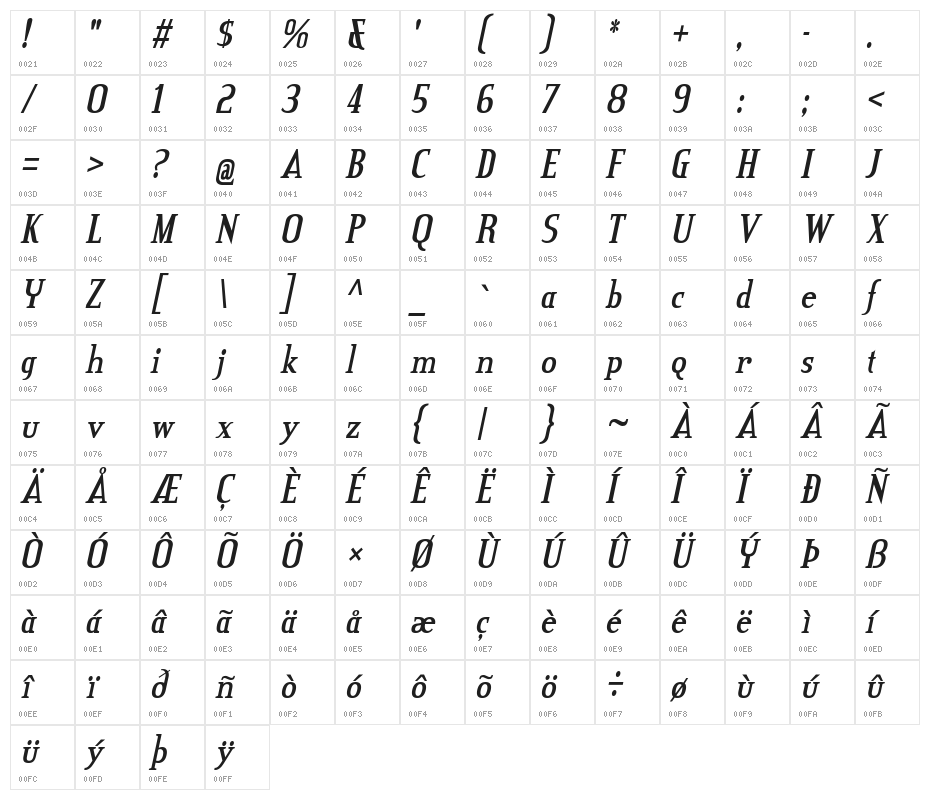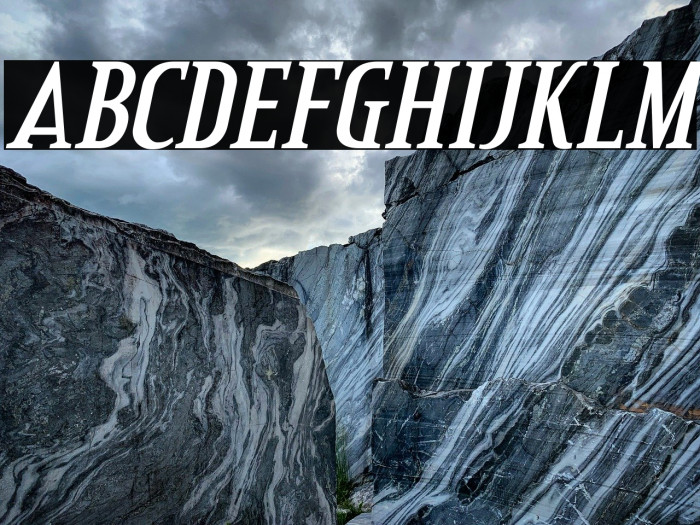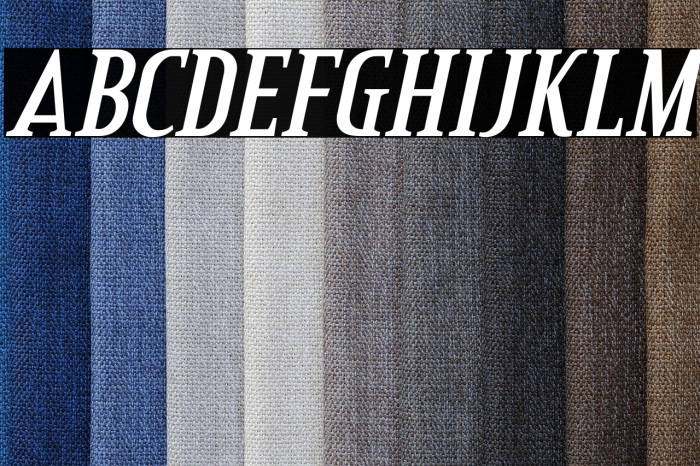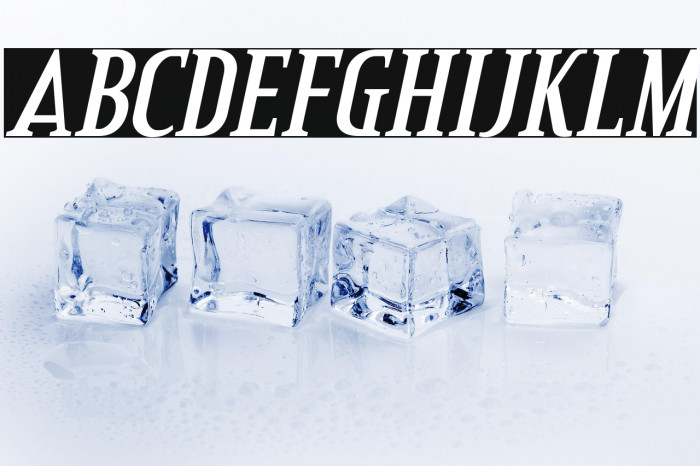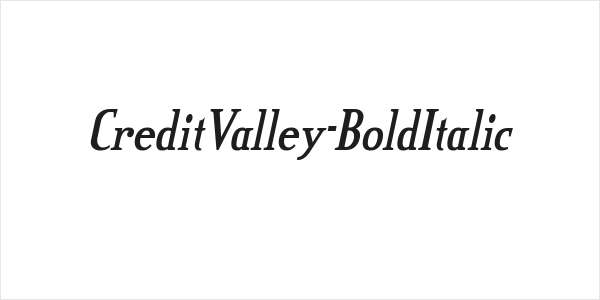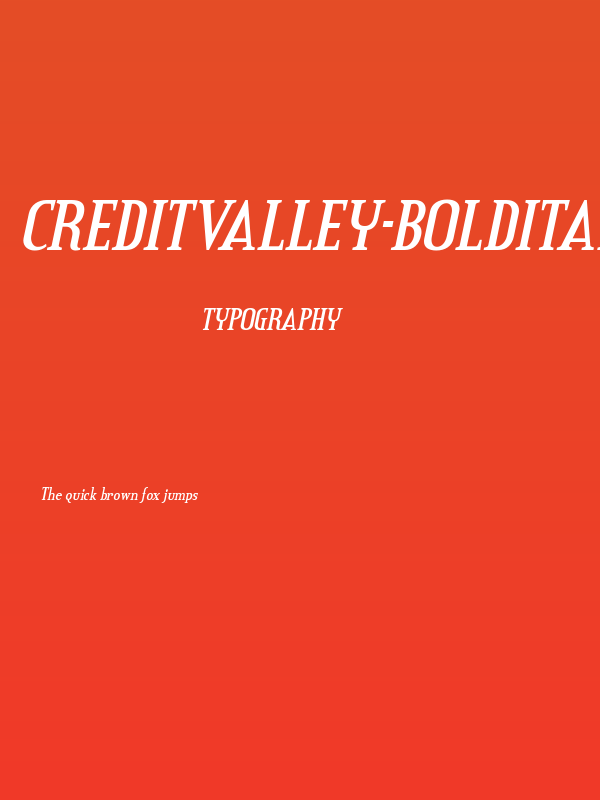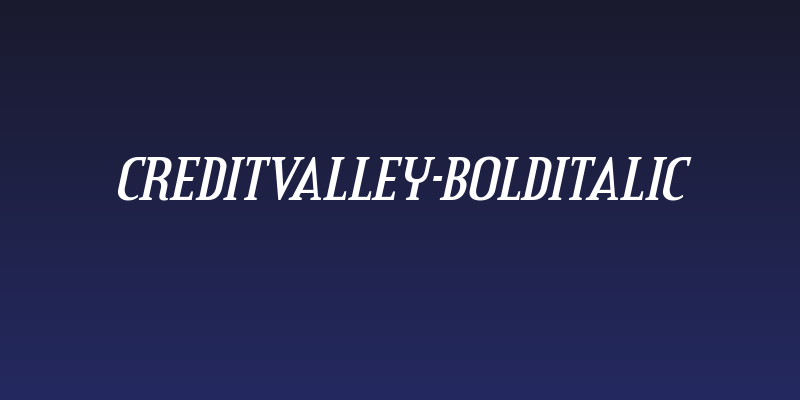
CreditValley-BoldItalic Font
CreditValley-BoldItalic Description
This font exhibits a bold and italicized style, characterized by its strong presence and dynamic slant. The uppercase letters are tall and commanding, while the lowercase letters maintain a consistent flow with slightly exaggerated curves. The numerals are robust and clear, ensuring readability. Special characters are well-defined, adding to the font's versatility. The overall design is modern yet retains a classic elegance, making it suitable for various applications.
| Proposed Projects | Ideal for branding, advertising, and editorial design where a strong, elegant presence is required. |